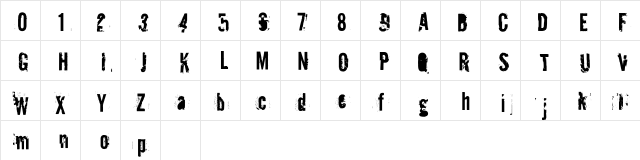
blue jeans july
Style: july
Design Context for blue jeans
blue jeans is a composed and adaptable typeface that performs quietly and consistently across a wide range of design contexts.